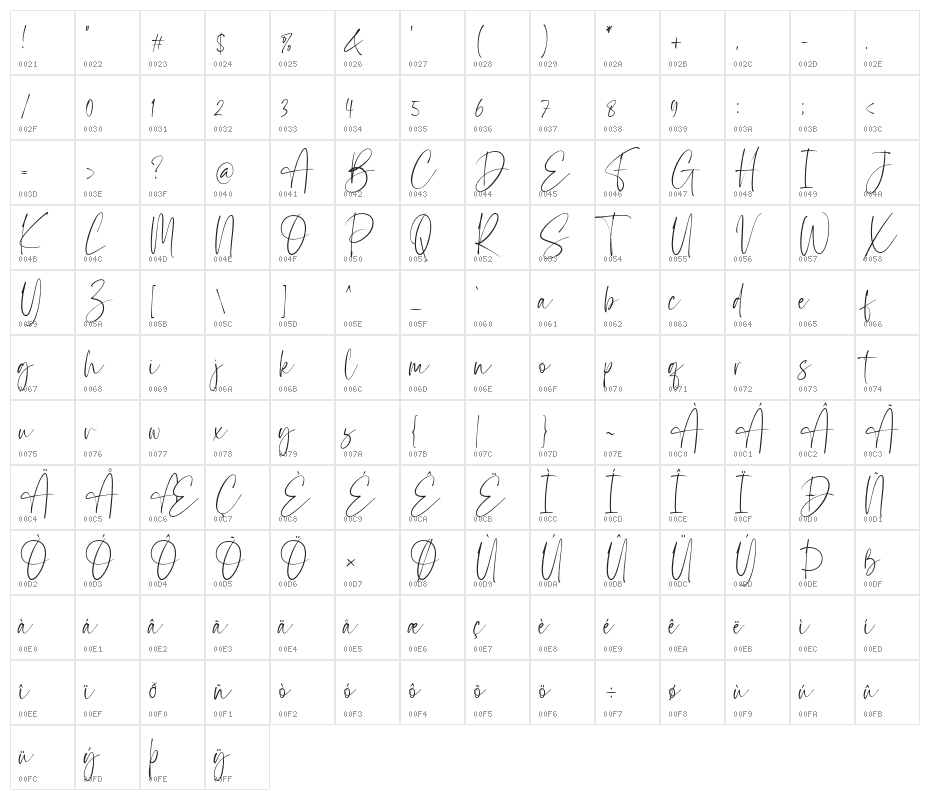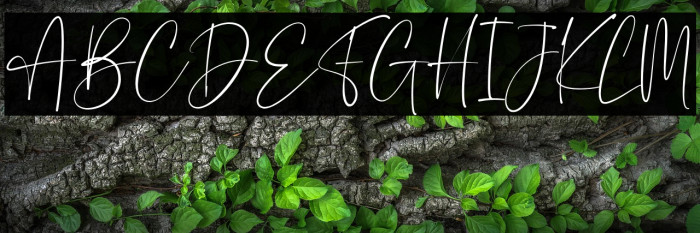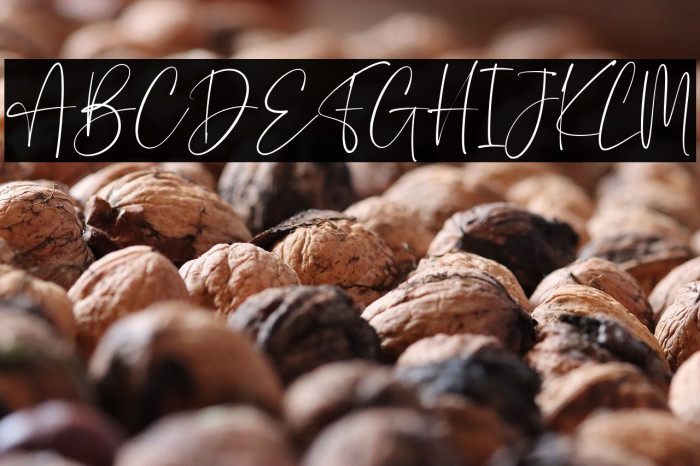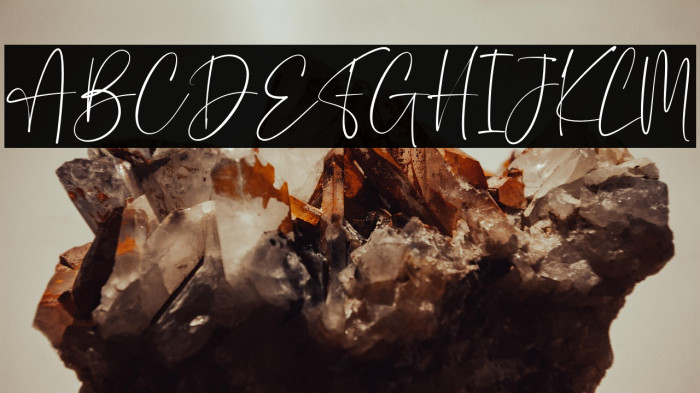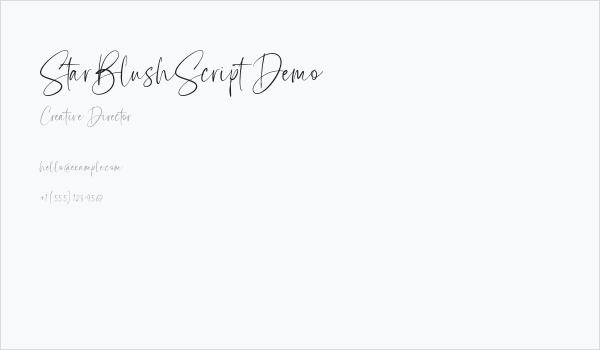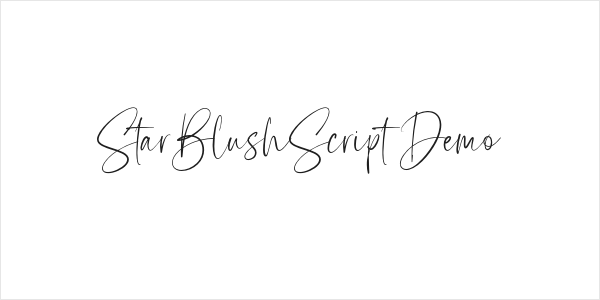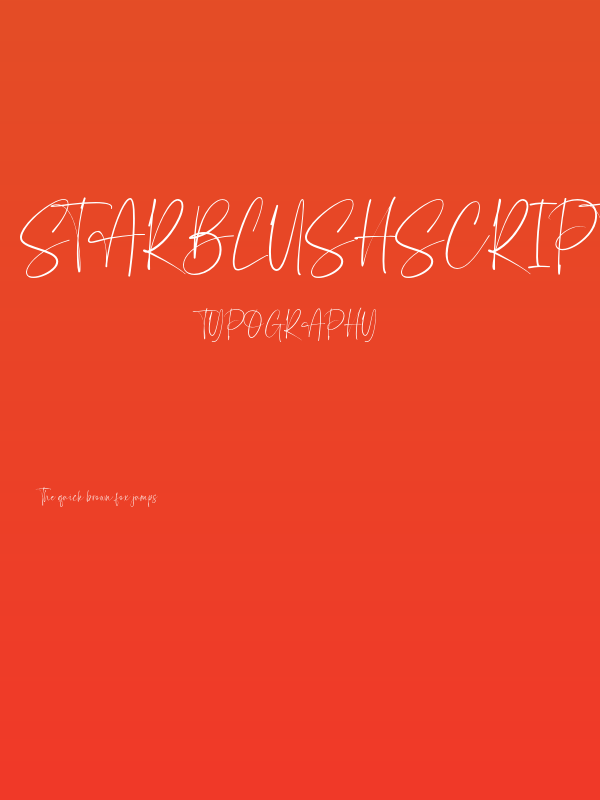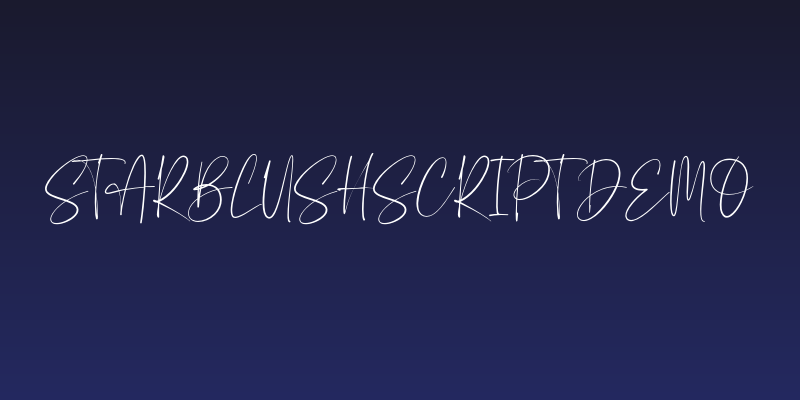
StarBlushScript Demo Font
StarBlushScript Demo Description
A flowing, handwritten script font with a casual and elegant style, featuring smooth curves and varying stroke widths.
| Use Case | Logos, Invitations, Personal branding |
| Proposed Projects | Wedding invitations, greeting cards, personal branding. |